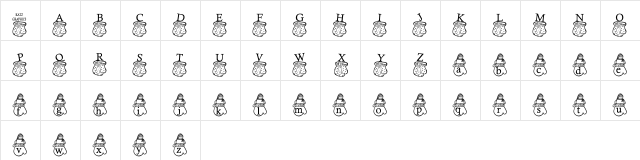
KG LIS Regular
Design Context for KG LIS Typeface
KG LIS is a composed and adaptable typeface that performs quietly and consistently across a wide range of design contexts.